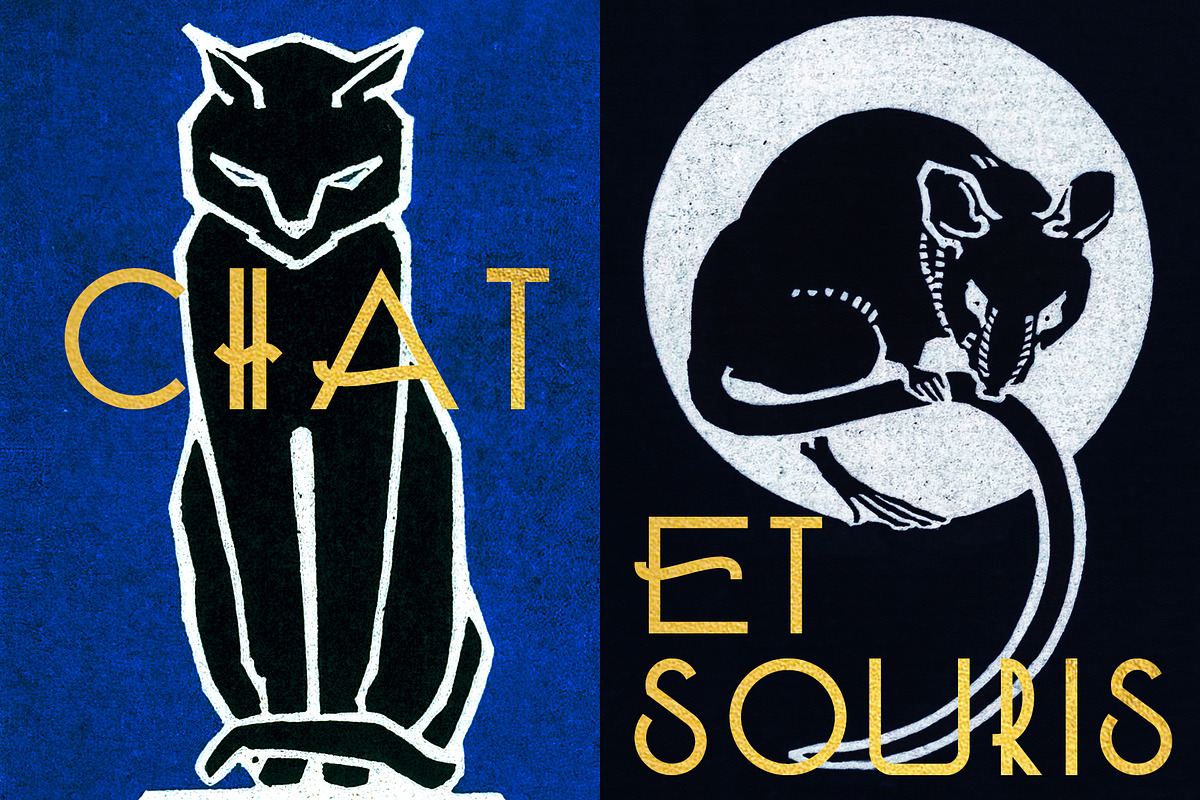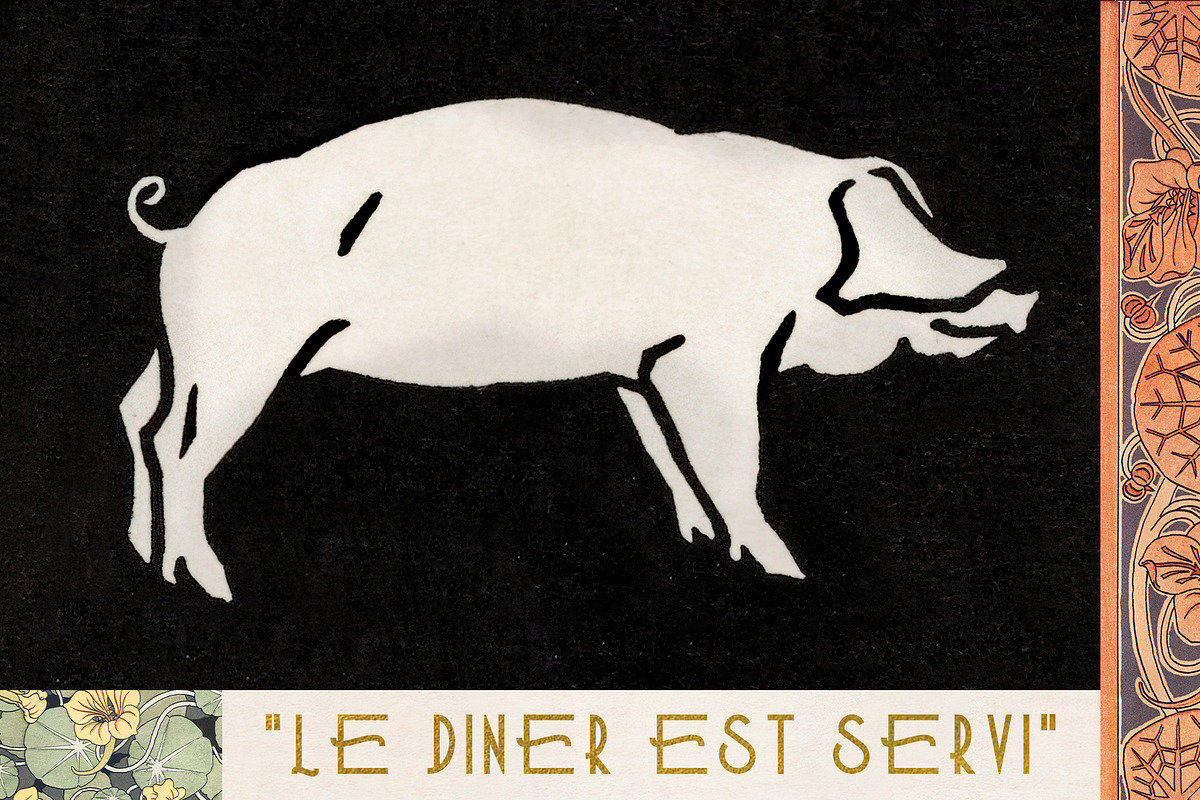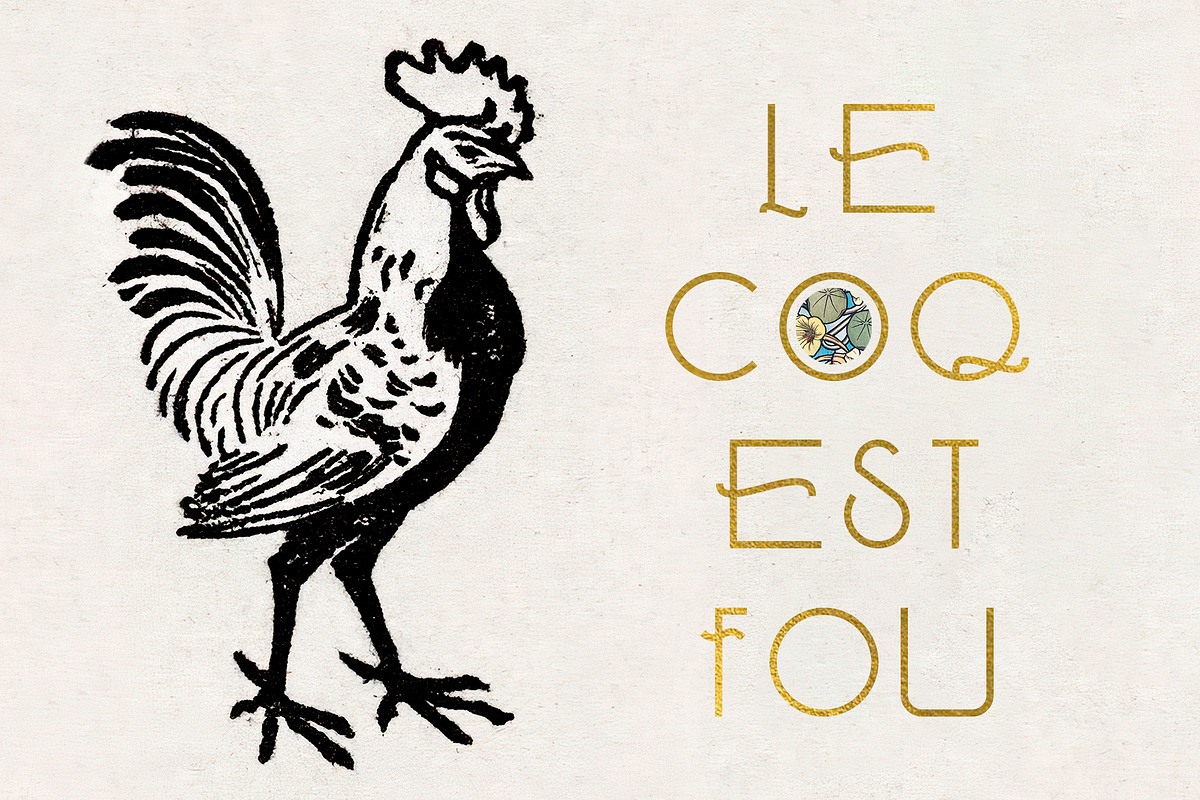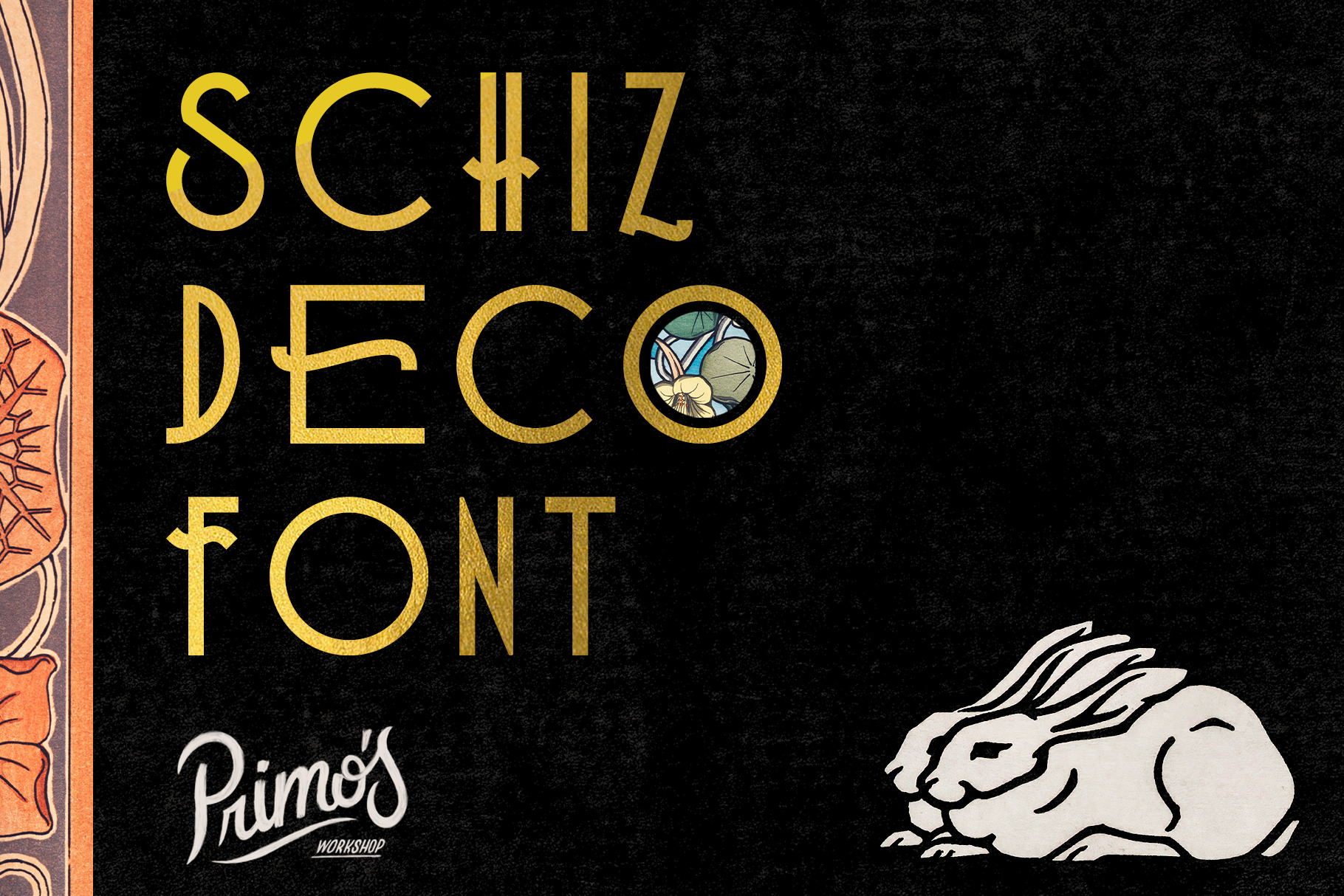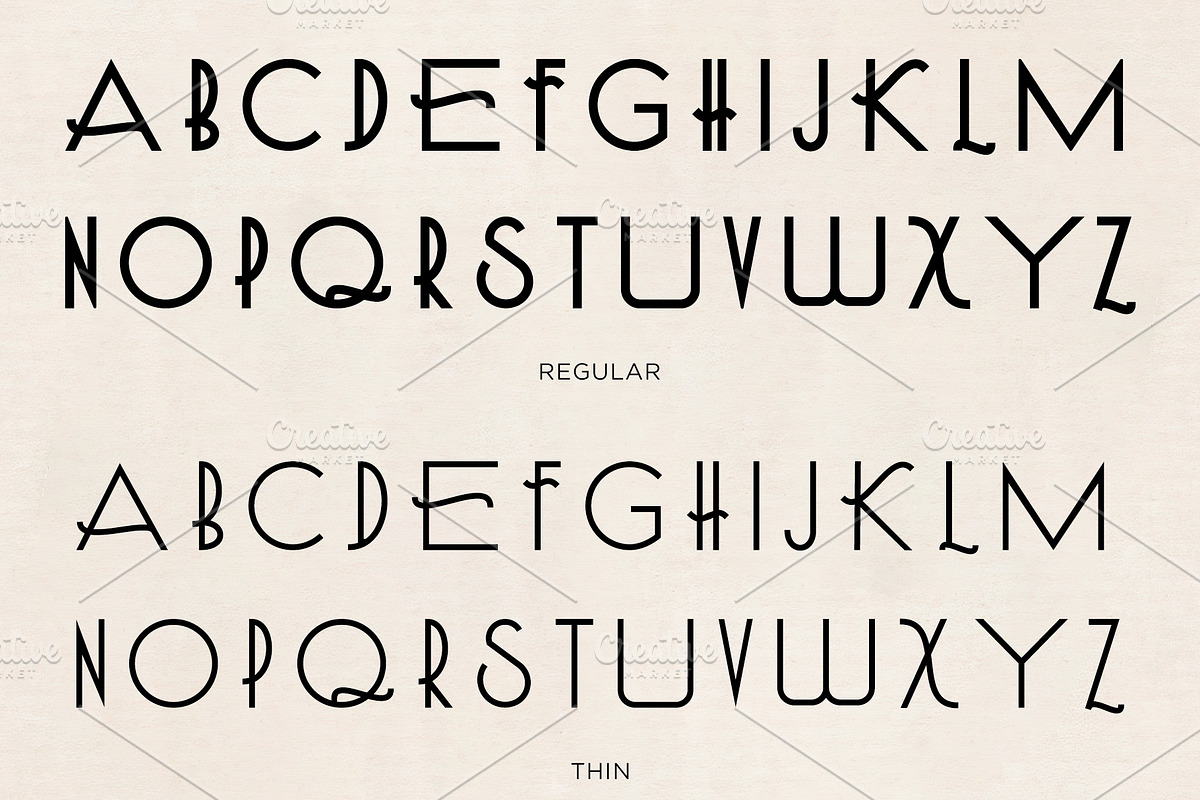
Schiz Deco Font
Calm, cool, and schizophrenic. Schiz Deco has all the fancy charm of that rich Art Deco time period and combines it with just a little whimsical flare.
It comes in two options - regular and thin. Contains the alphabet as well as some basic punctuation (period, comma, apostrophes, quotes, exclamation point, and question mark.)